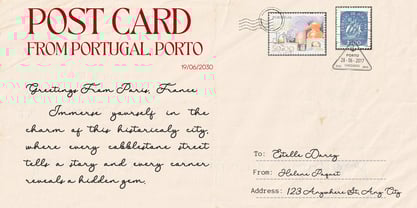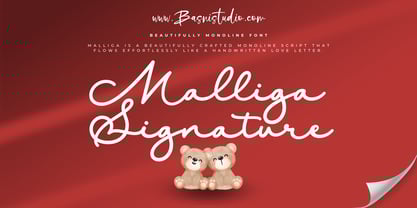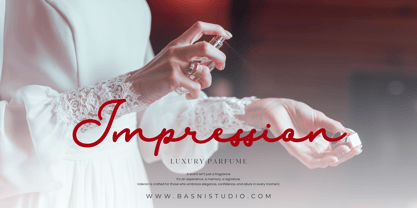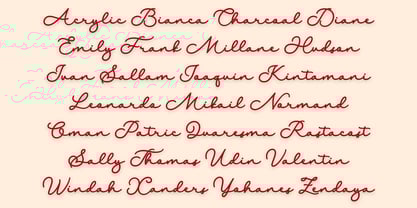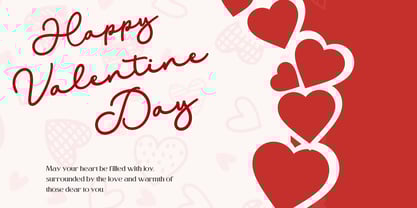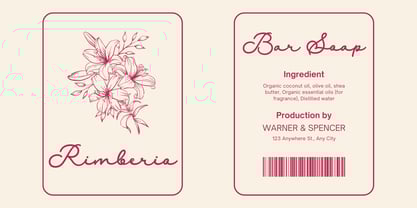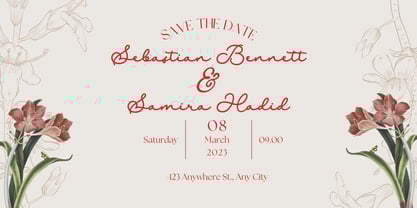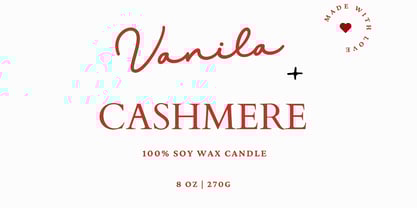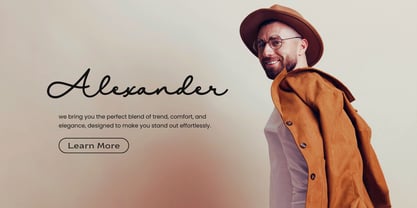
Malliga Signature
The Malliga Signature Font Family was designed by Bery Arisandi and published by Basnistudio. Malliga Signature contains 1 styles. More about this family
Introducing Malliga Signature – A Love Story in Every Stroke!
Looking for the perfect font to add a touch of romance, elegance, and charm to your designs? Meet Malliga Signature, a beautifully crafted monoline script that flows effortlessly like a handwritten love letter.
💌 Why You’ll Love It:
Smooth & Elegant: Delicate strokes that create a timeless, romantic feel.
Perfectly Versatile: Ideal for wedding invitations, branding, love notes, and more.
Handwritten Beauty: Designed to capture the warmth and authenticity of real handwriting.
Multilingual Support: Because love knows no boundaries!
Whether you’re designing for Valentine’s Day, weddings, or heartfelt messages, Malliga Signature adds an intimate and sophisticated touch to every project.
🎁 Bonus: Includes ligatures for extra charm!
• Uppercase & lowercase letters
• Ligatures
• Numbers & punctuation
• Multilingual Support ( Support for 30 languages )